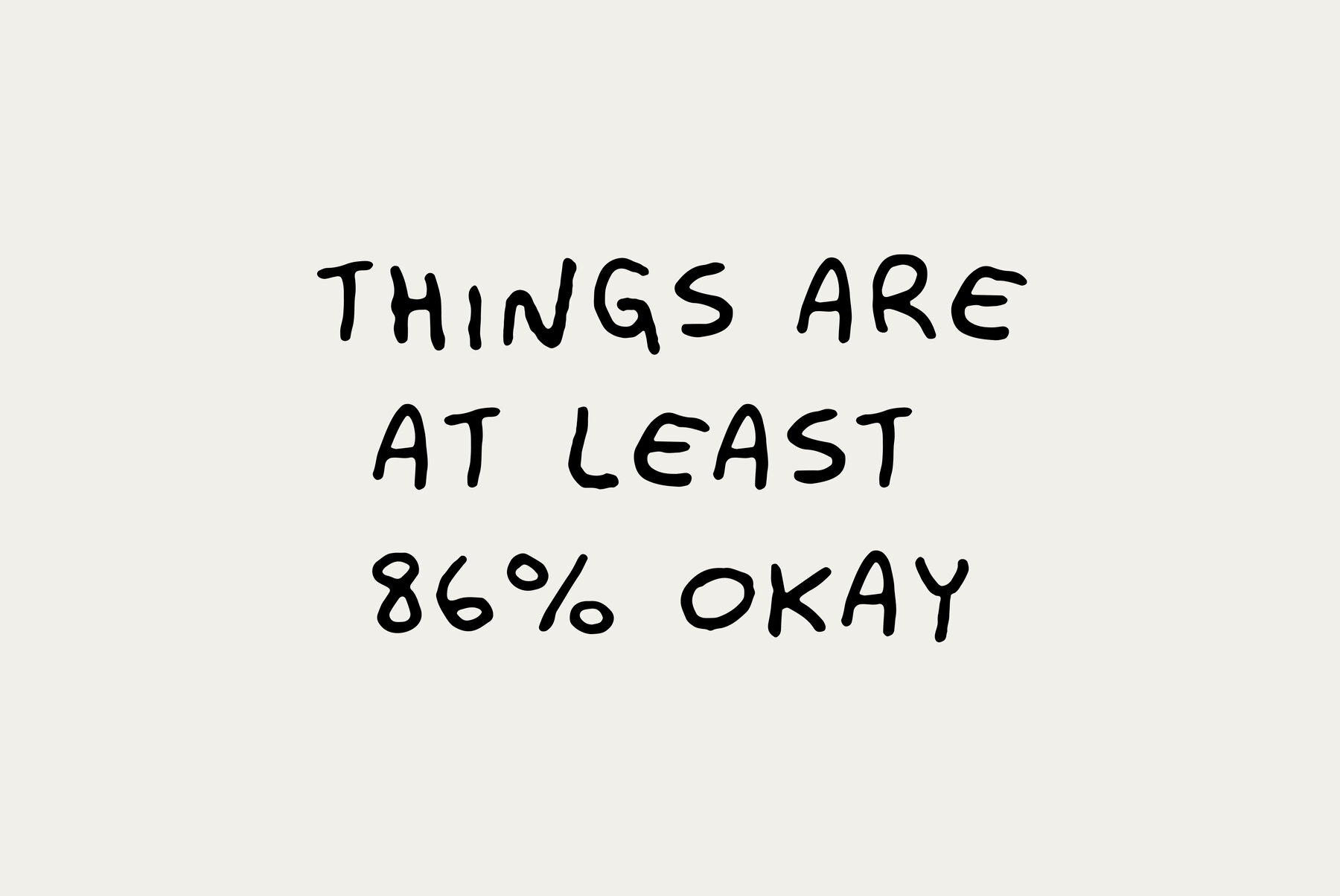
Ugly Dave Font
The short: a bad handwriting font.
The long: Ugly Dave is not a 'nice' font... it's pretty much the bare minimum in terms of handwriting. It's messy and childish and some may even call it yuck. On the positive side - it's almost legible!
However, if your handwriting is going to be bad, why not make it consistently bad? Don't worry, Ugly Dave has your back. You can now adorn your designs with writing that makes it look like you never went to school! Awesome.